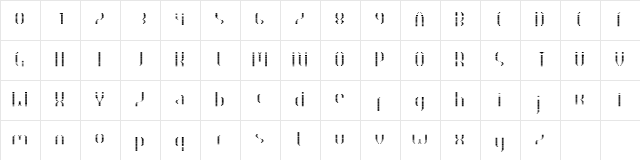
HEAVYwood engraved fill Regular
| Designer | Greentrik |
Design Context for HEAVYwood engraved fill Typeface
HEAVYwood engraved fill taps into classic Western woodtype traditions — bold, characterful, and impossible to ignore.
A natural fit for craft spirits, ranch branding, rodeo events, and Americana-inspired design work.
Font Pairing: Combine HEAVYwood engraved fill with a simple slab or neutral sans — period-accurate companions reinforce the vintage feel without competing for attention.
Pro Tip: Use HEAVYwood engraved fill for short, impactful bursts of text — it shines in poster headlines and product names rather than extended copy.